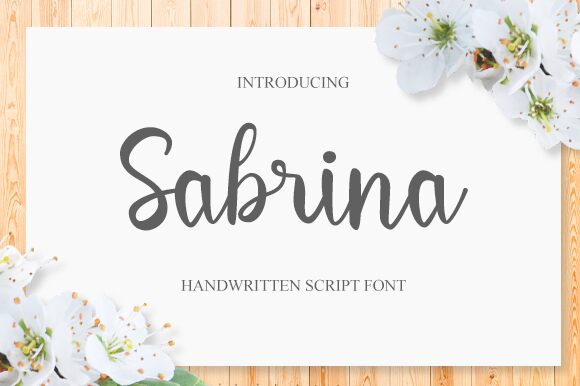
Sabrina
Introducing Sabrina, a beautiful handwritten font created by Aldi Raya Pradipta. Perfect for adding a personal and unique touch to your projects, Sabrina is suitable for everything from wedding invitations to handmade cards and stickers.